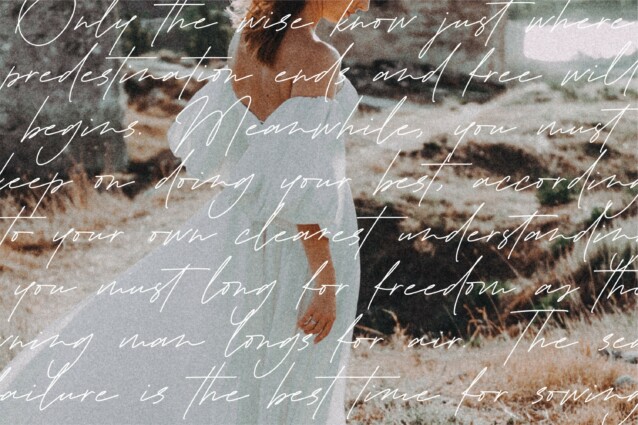
Runaways Font – our latest signature script font designed to add an elegant and personal touch to your creative projects. With its stylish signature style and exquisite ending swashes, Runaways effortlessly captures the essence of handwritten elegance.
Perfectly suited for various applications, Runaways is a versatile addition to your font collection. Create stunning logotypes that leave a lasting impression, craft exquisite wedding invitations that evoke romance and sophistication, design eye-catching packaging that stands out on the shelf, and adorn your merchandise with a touch of timeless charm.
But that’s not all! Runaways is also ideal for branding, social media graphics, product labels, apparel design, and so much more. Elevate your projects with this graceful and versatile script font and let your creativity run wild. Discover the endless possibilities and make ‘Runaways’ your go-to font for all your design needs today!